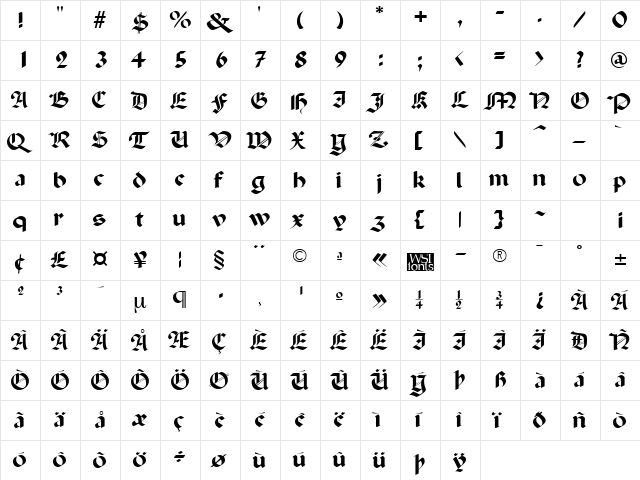
Penchant Regular
Design Context for Penchant Typeface
Penchant is a composed and adaptable typeface that performs quietly and consistently across a wide range of design contexts.